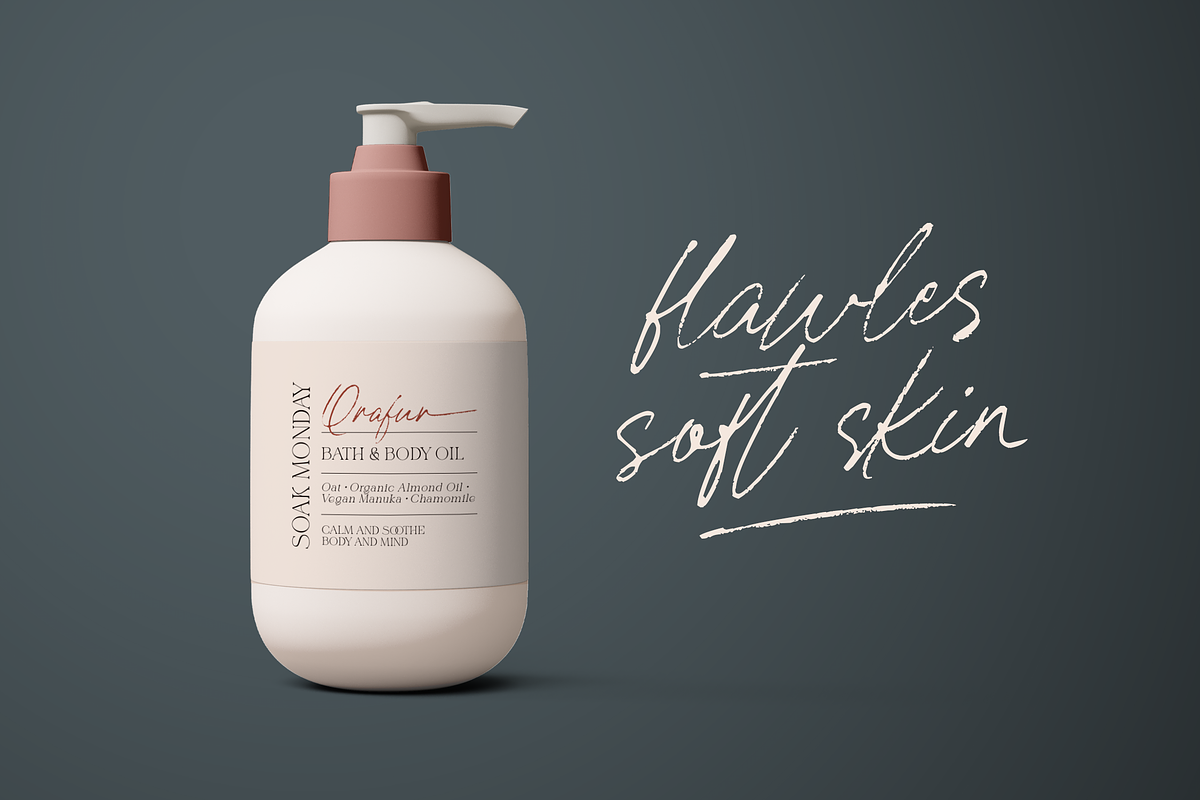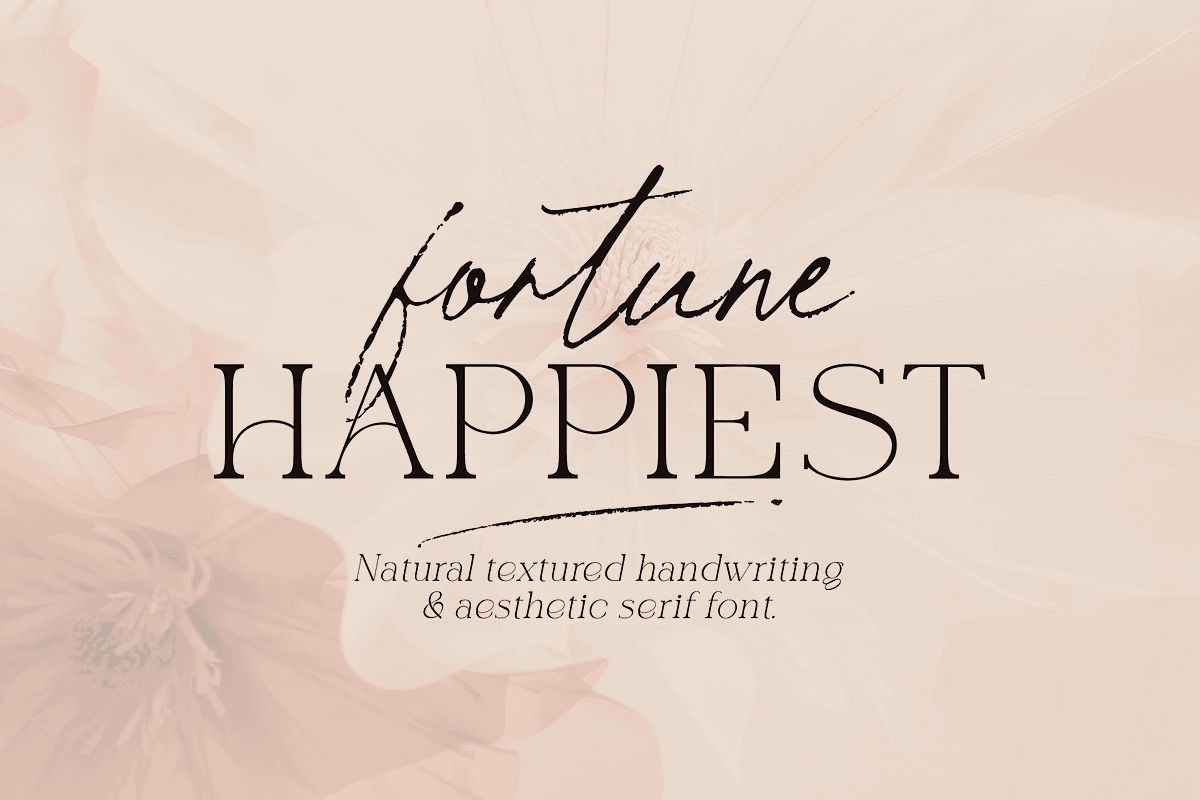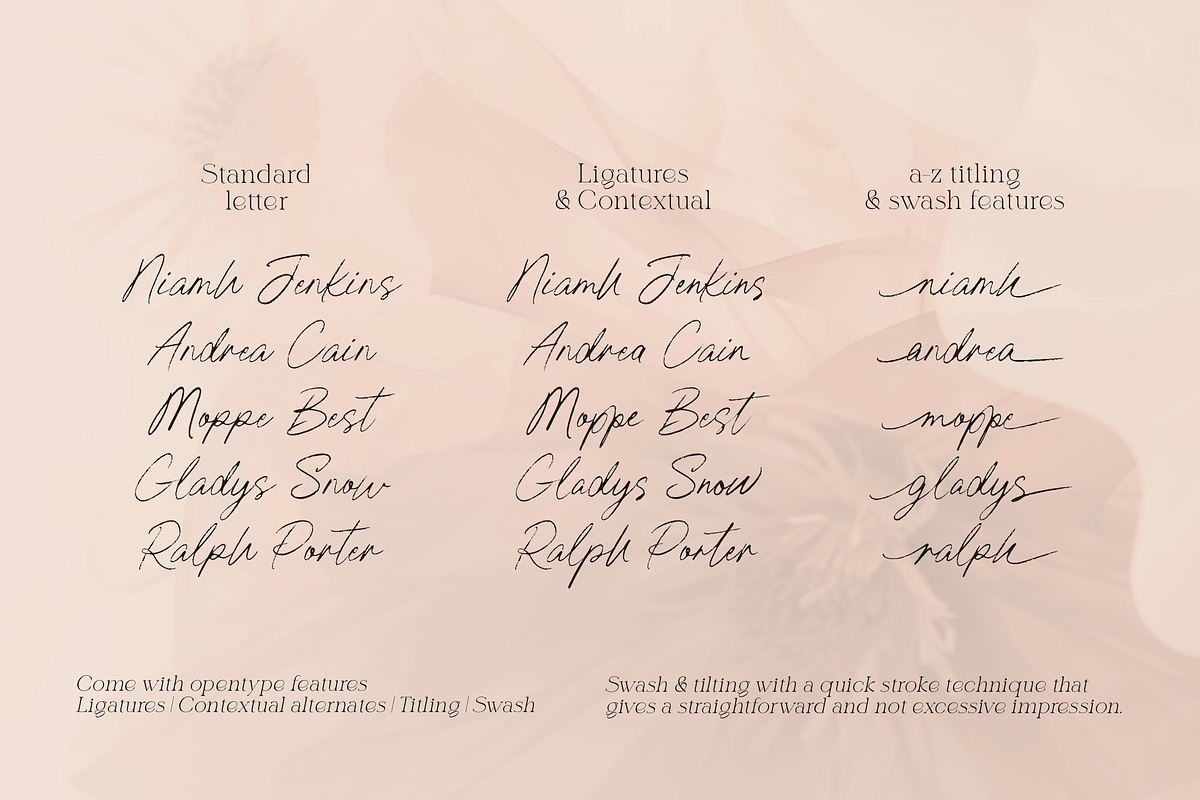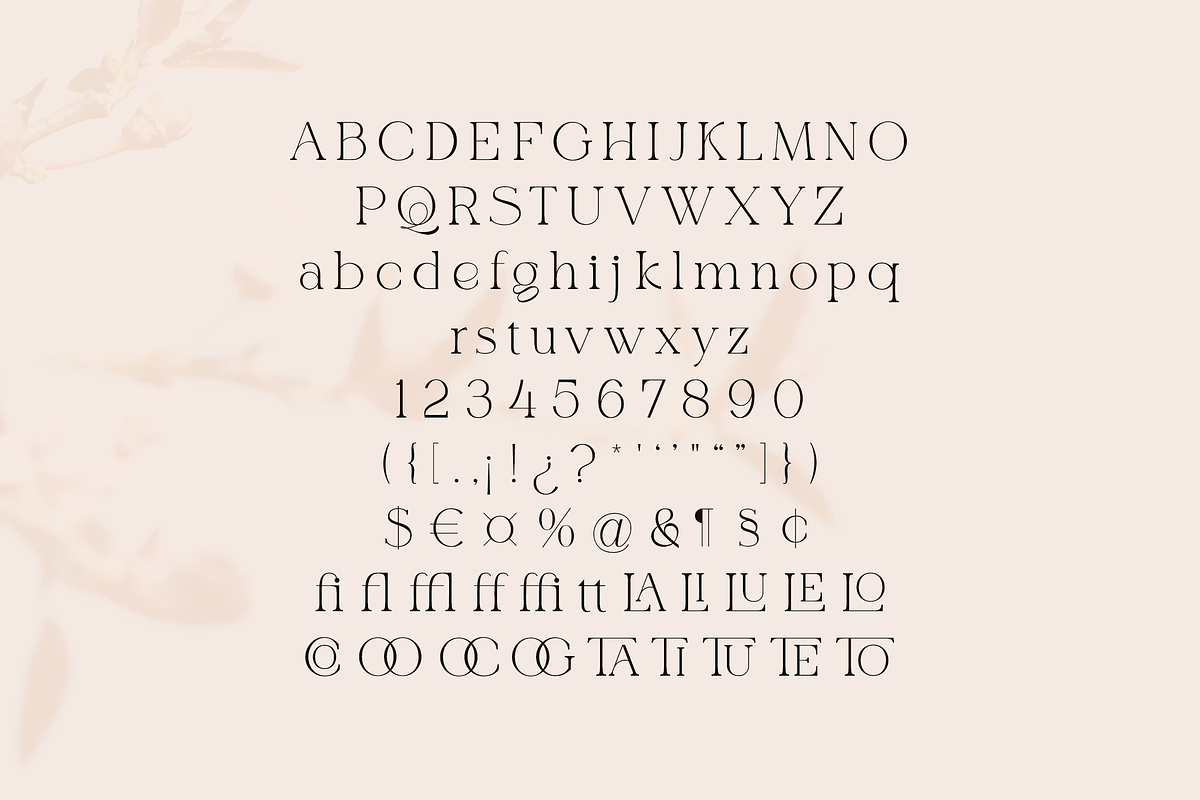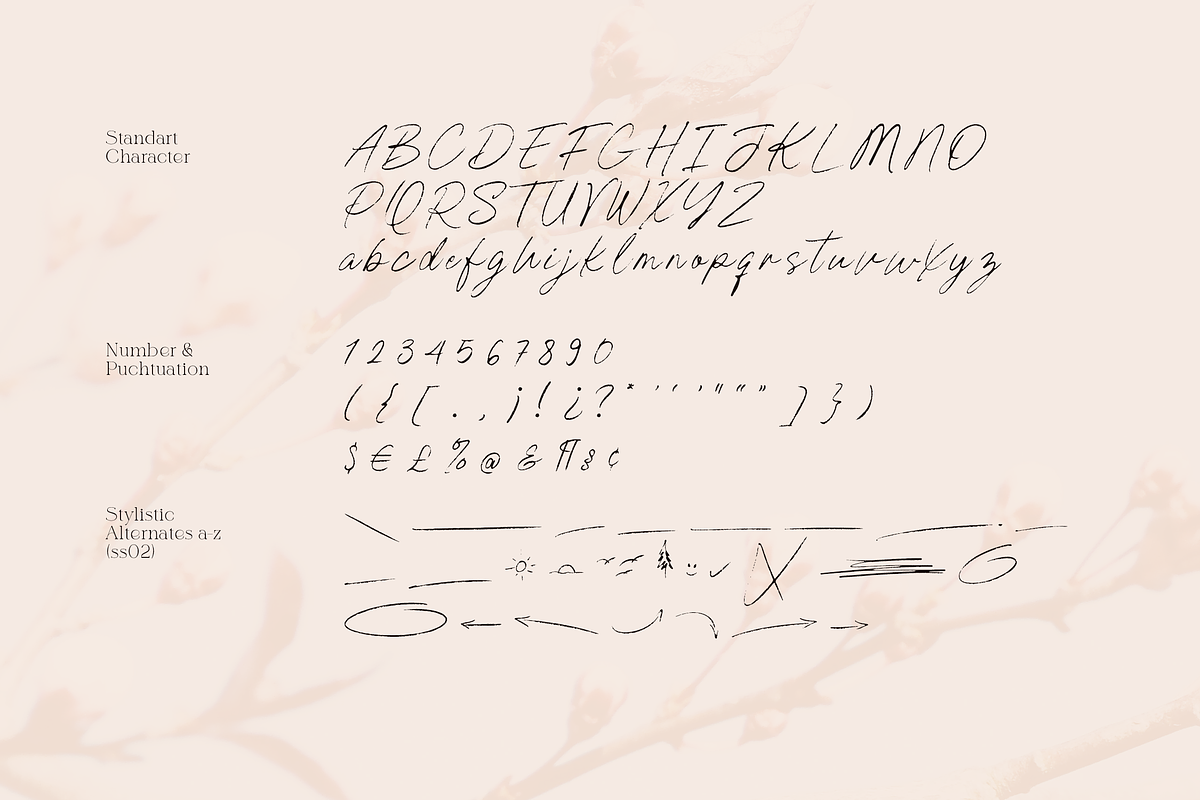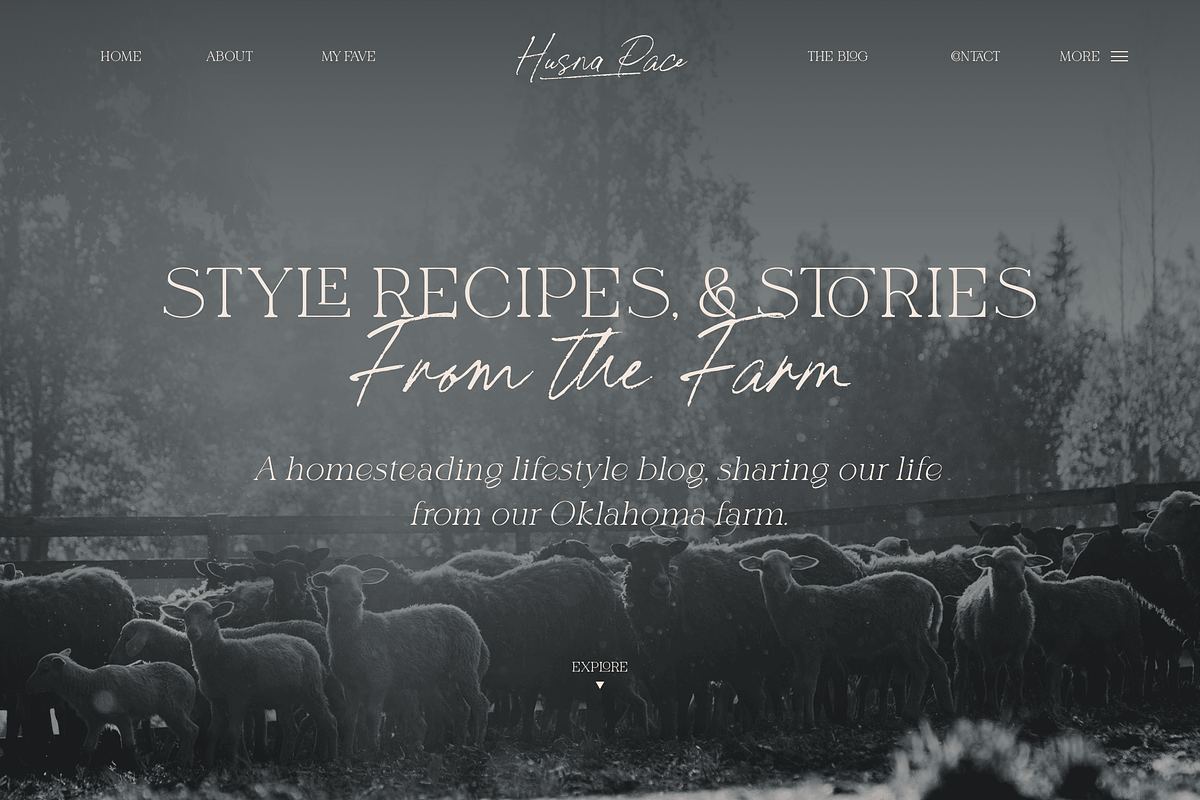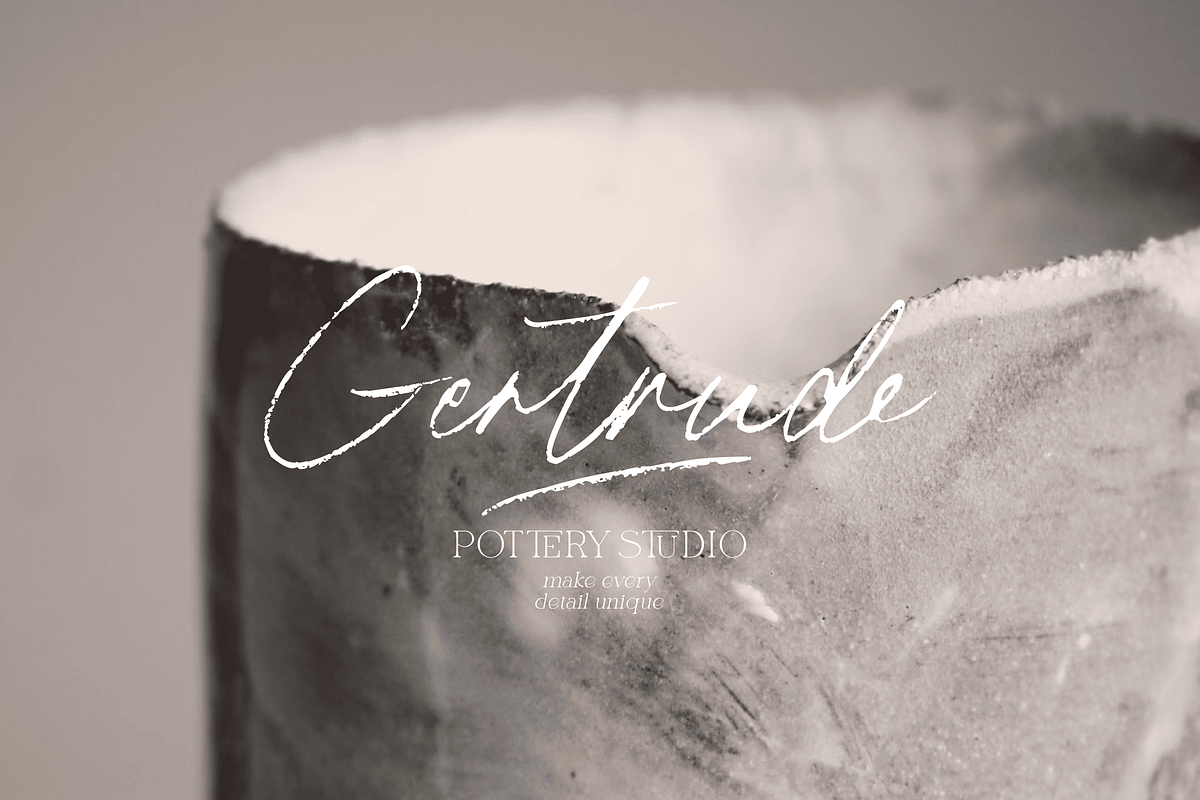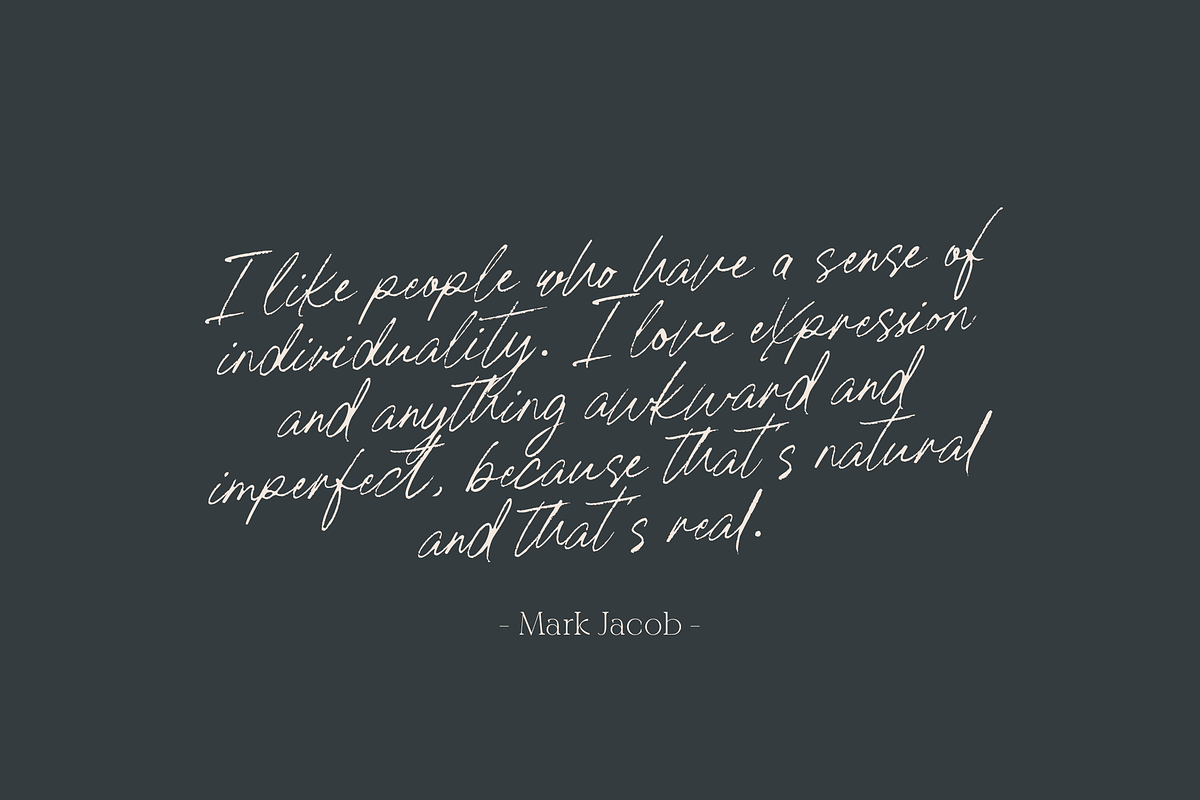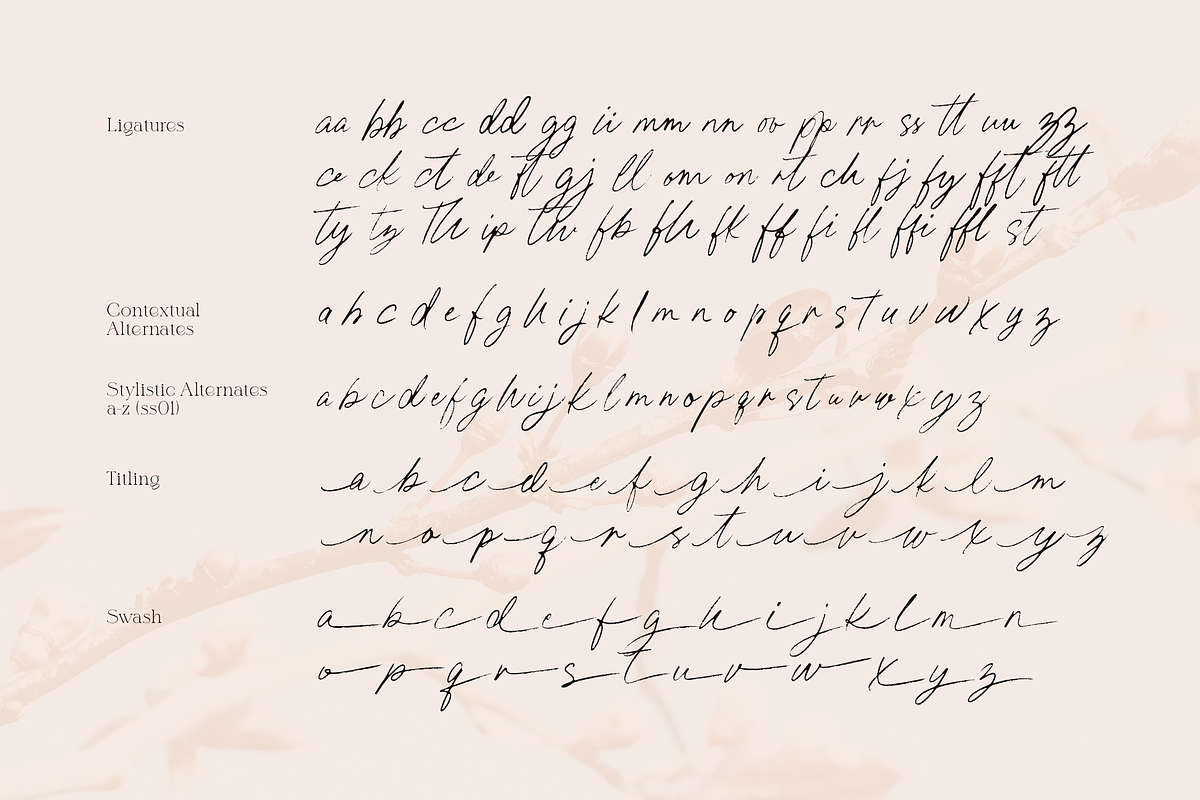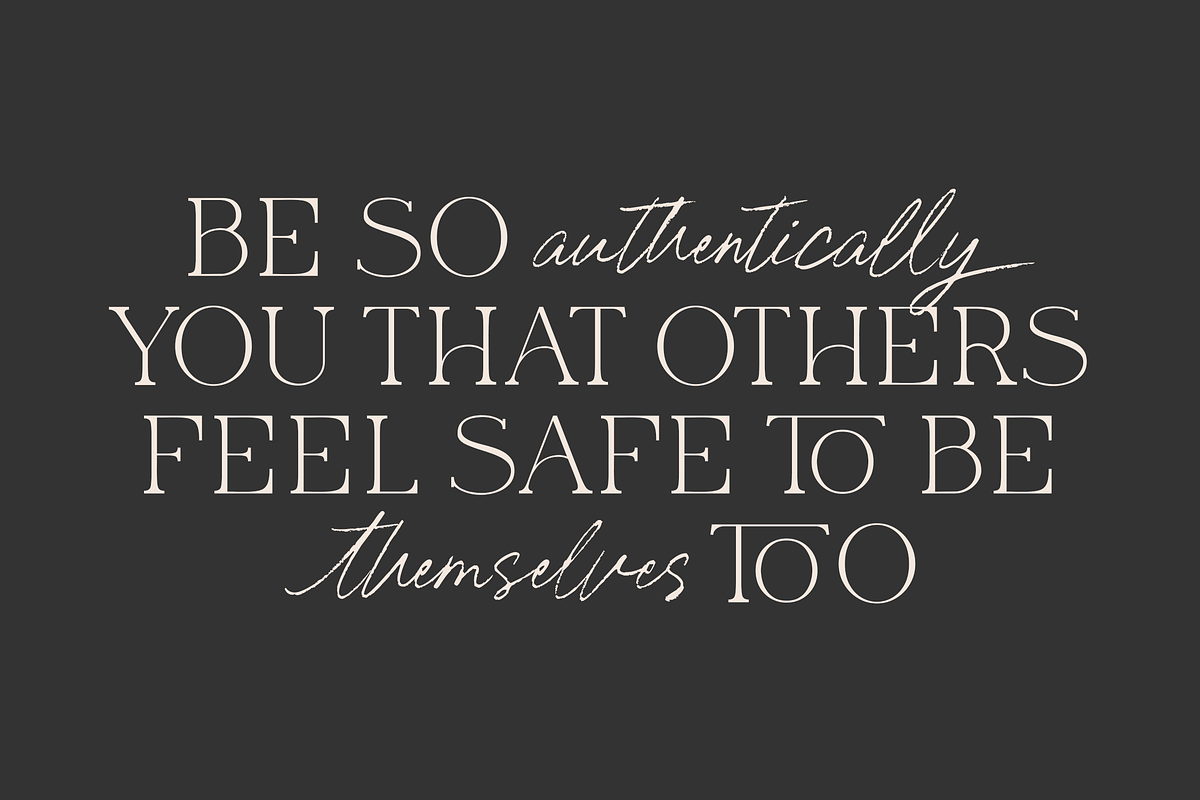
Fortune Happiest - Script Serif Duo
Introducing Fortune Happiest, a sophisticated and harmonious font duo designed to bring high-end elegance and organic warmth to your creative projects.
This curated pairing features a naturally textured, expressive handwriting script alongside an aesthetic, classic serif font with unique artistic ligatures. Together, they create a perfect balance of modern luxury and raw, authentic emotion.
Whether you are designing a high-fashion brand identity, editorial layouts, artisanal packaging, or lifestyle social media graphics, Fortune Happiest delivers an effortless, editorial look.
Fortune Happiest Script (OTF, TTF, WOFF): A fluid, hand-drawn script full of texture, realistic swashes, and natural flows.
Fortune Happiest Serif (OTF, TTF, WOFF): A stylish, high-contrast serif font featuring artistic stencils, elegant curves, and a commanding presentation.
Full Character Sets: Standard Uppercase & Lowercase, Numbers, and Comprehensive Punctuation.
Creative Features & Opentype Alternates:
To make your typography look truly custom-made, this font pack includes a wealth of OpenType features:
Extensive Ligatures: Beautifully connected letter pairings for both script and serif styles to emulate authentic handwriting and premium editorial typography.
Contextual & Stylistic Alternates: Unique letter variants to add variety and character to your layouts.
Special Swashes & Titling Features: Perfect for crafting standout headlines, logos, and focal text.
Luxury Branding & Logo Design
Cosmetics & Skincare Product Packaging (as seen in the preview!)
Editorial Layouts & Magazine Headers
Wedding Invitations & High-End Stationery
Aesthetic Social Media Graphics & Quotes
Website Headers & Lifestyle Blog Typography
Bring a touch of timeless, organic luxury to your design toolkit today with Fortune Happiest.